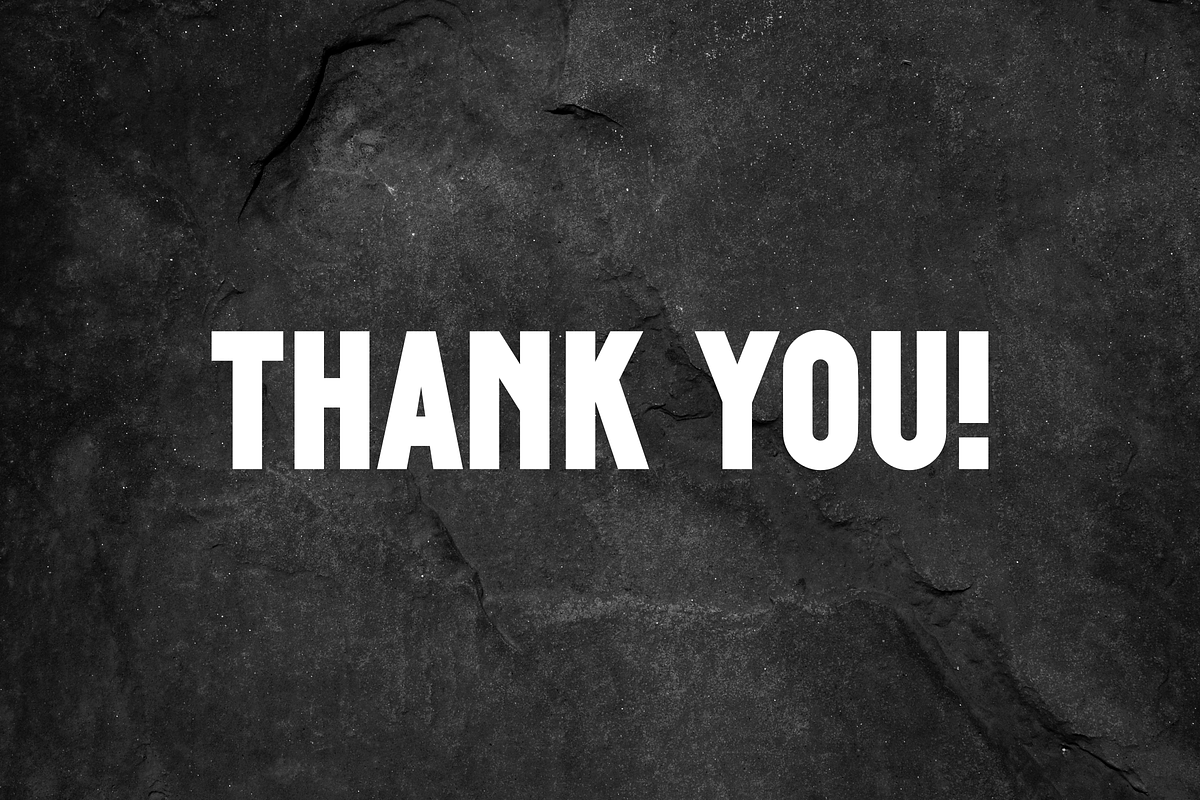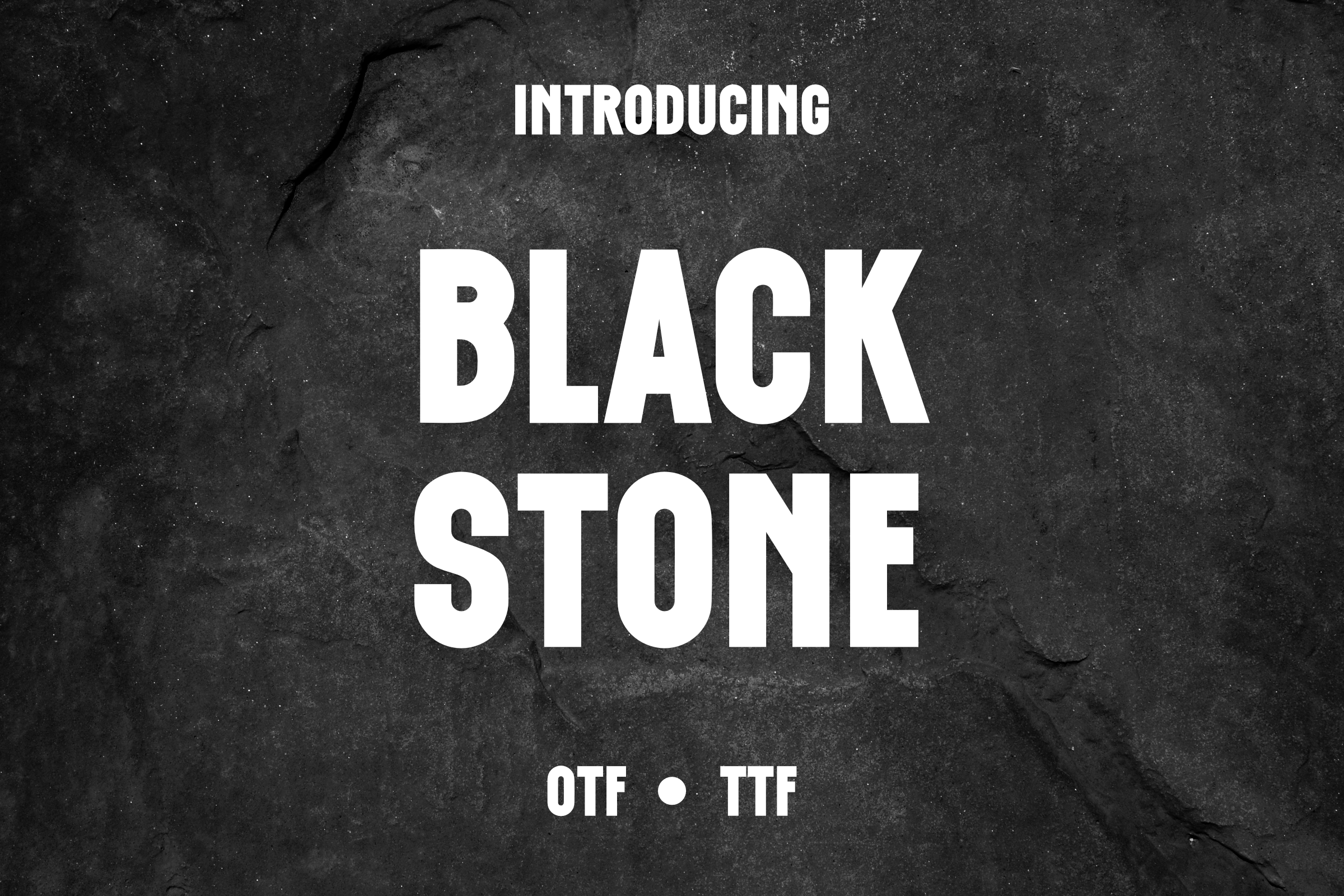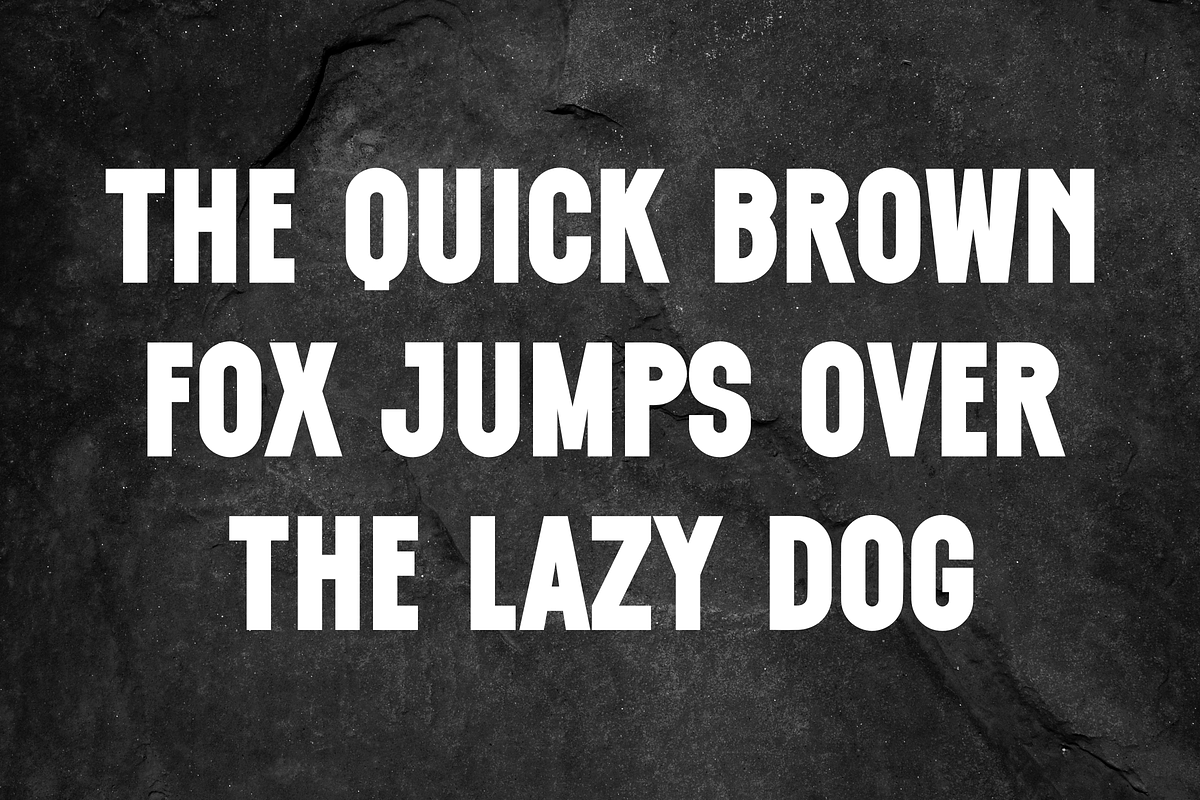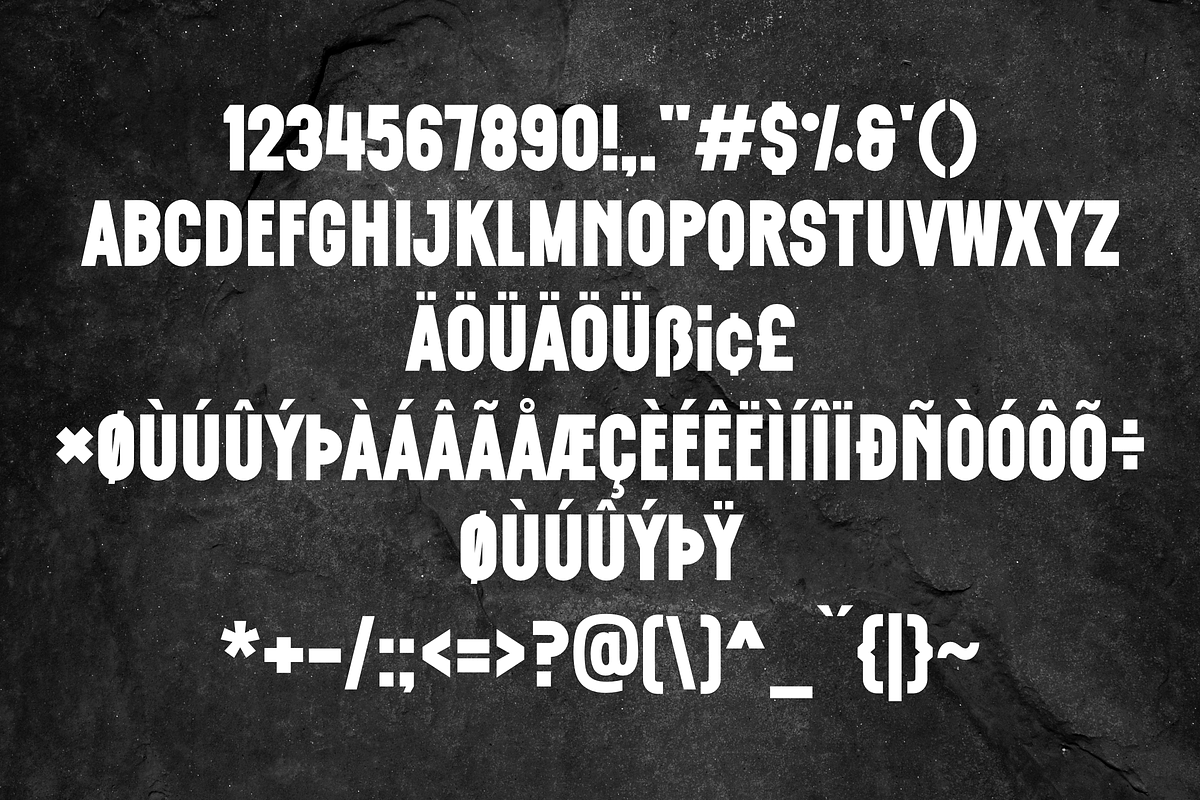
Black Stone Sans Serif Font
Unleash an air of bold sophistication into your projects with Black Stone, a meticulously designed sans serif font. With its polished elegance and robust charm, Black Stone promises to infuse a sturdy, streamlined appearance that strikes a perfect balance between classic simplicity and contemporary flair.